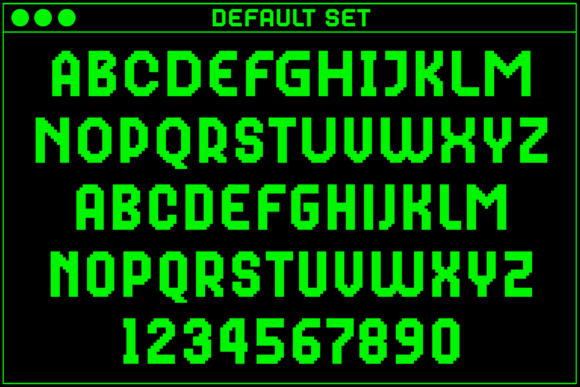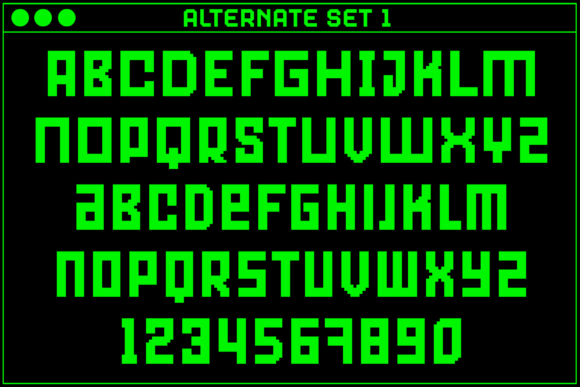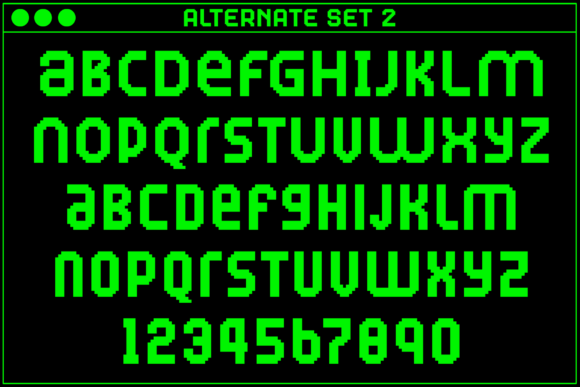
Introduction to MultiType Pixel Narrow Font
Have you ever stared at a blank canvas, waiting for the perfect font to bring your creative project to life? For many designers, the search for the ideal typography is a never-ending quest. But what if I told you there’s a game-changing font that can add a unique touch to your designs? Say hello to MultiType Pixel Narrow Font – a cool, pixelated display font that’s about to become your new design BFF.
This quirky font is not just a pretty face; it’s also PUA encoded, making it super easy to access all its glyphs and swashes. Whether you’re working on a free download project or need a high-quality font for a commercial design, MultiType Pixel Narrow Font has got you covered. Plus, its transparent background makes it a breeze to use on any design surface.
- Unique MultiType Pixel Narrow Font style with narrow pixelated design, ideal for pixel art and retro-themed projects.
- Includes a range of font styles, including bold, regular, and italic, to suit various design needs.
- High-resolution design, suitable for use in print and digital applications, including logos, graphics, and UI elements.
- Perfect for designers working on pixel art, retro-style games, and other creative projects that require a unique, high-quality font.
Honest Review: MultiType Pixel Narrow Font
As a designer, I’m always on the lookout for high-quality fonts to enhance my creative projects. Recently, I stumbled upon the MultiType Pixel Narrow Font, and I’m excited to share my honest review.
- ✨ The design is sleek and modern, perfect for any creative project that requires a clean and minimalist aesthetic.
- ✨ The font is available in a transparent background, which is a huge plus for designers who need to work with complex backgrounds.
- ⚠️ The font may not be suitable for large-scale projects due to its narrow design, which can make it difficult to read at certain sizes.
- ⚠️ Some users may find the font to be a bit too minimalist, which can make it difficult to pair with other fonts.
Overall, I’m impressed with the MultiType Pixel Narrow Font. While it may have a few limitations, its high-quality design and free download make it an excellent addition to any designer’s resource library. If you’re looking for a clean and modern font for your next creative project, I highly recommend giving it a try.
Designing with MultiType Pixel Narrow Font
MultiType Pixel Narrow Font is a high-quality, free download design resource perfect for creative projects. Its transparent background allows for seamless integration into various design platforms.
For optimal results, use MultiType Pixel Narrow Font in conjunction with high-contrast colors and clean designs. Experiment with different font sizes and styles to add visual interest to your project.
Common Use Cases for MultiType Pixel Narrow Font
MultiType Pixel Narrow Font is perfect for digital signage, web design, and mobile app development. Its narrow design makes it ideal for use in narrow spaces or as a headline font.